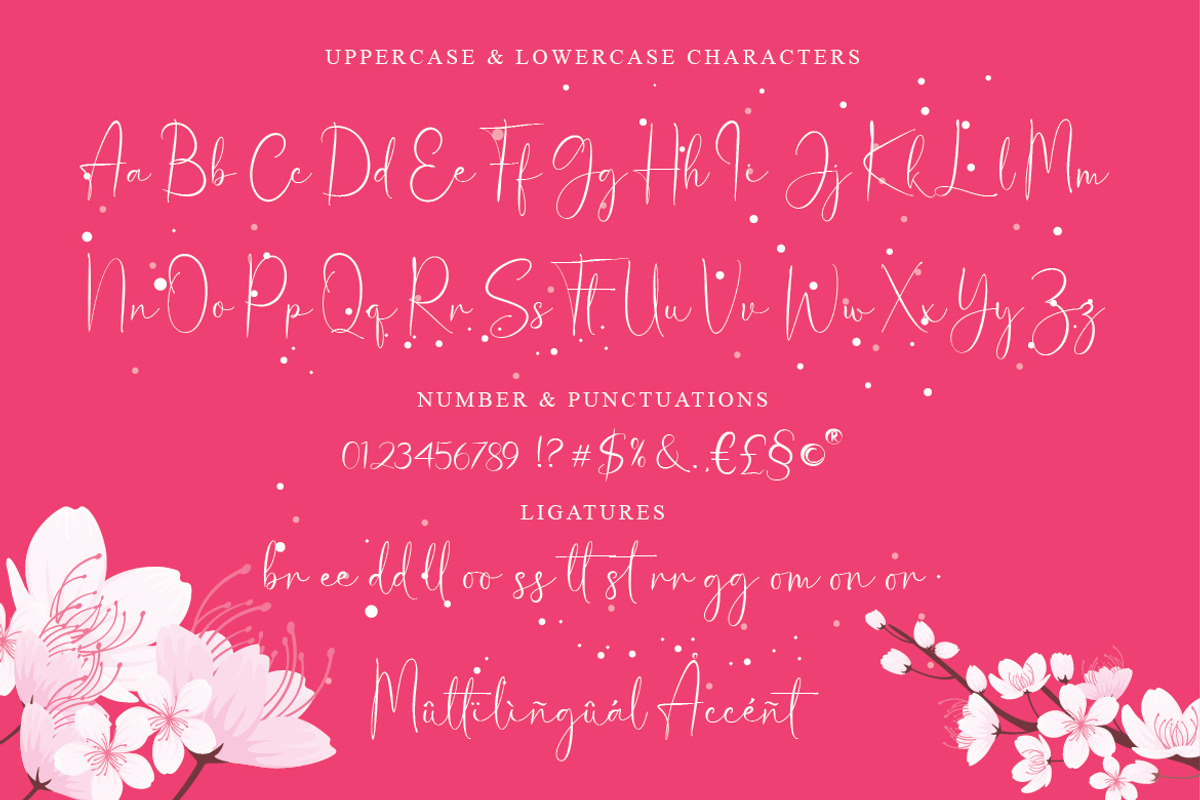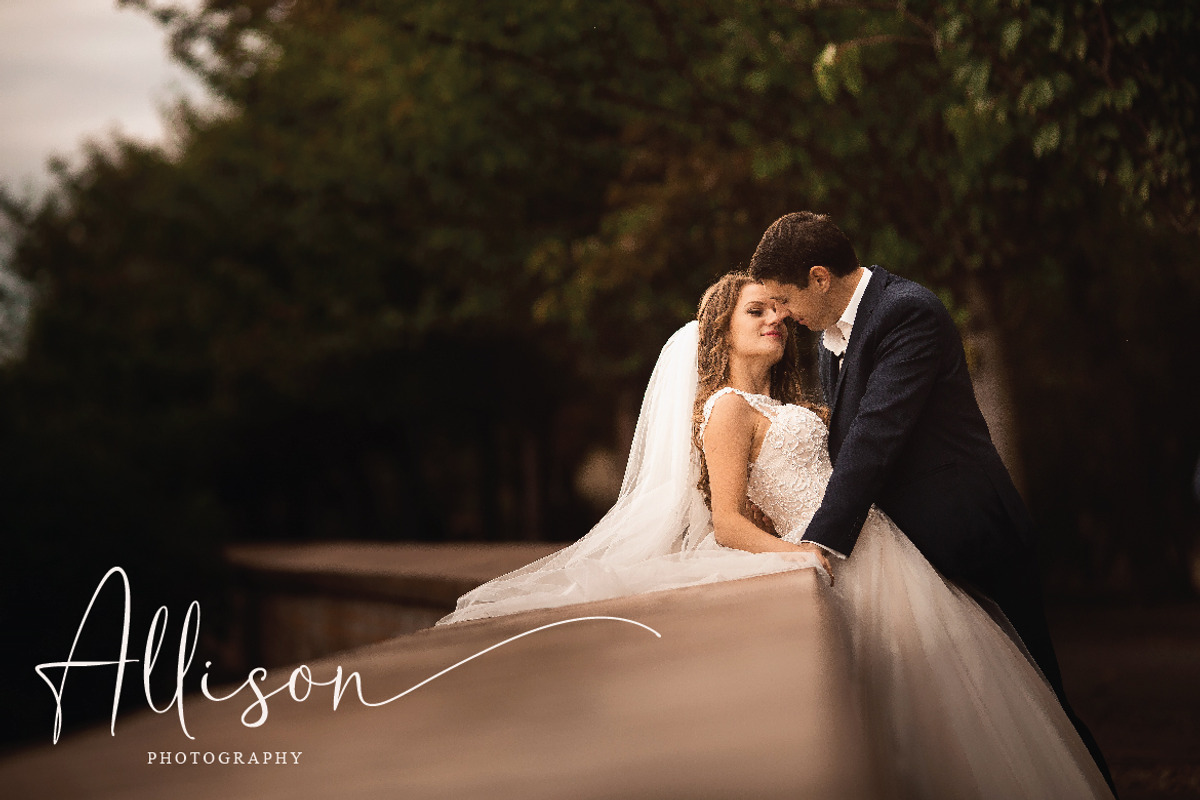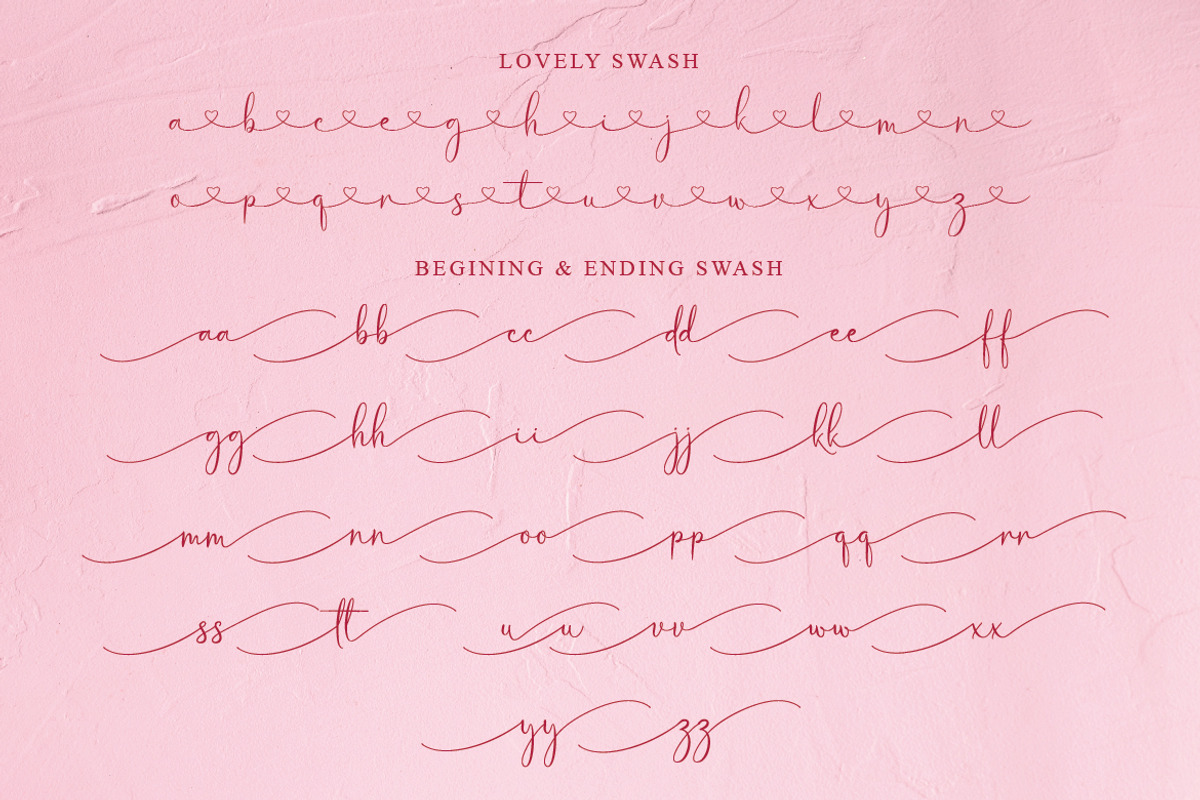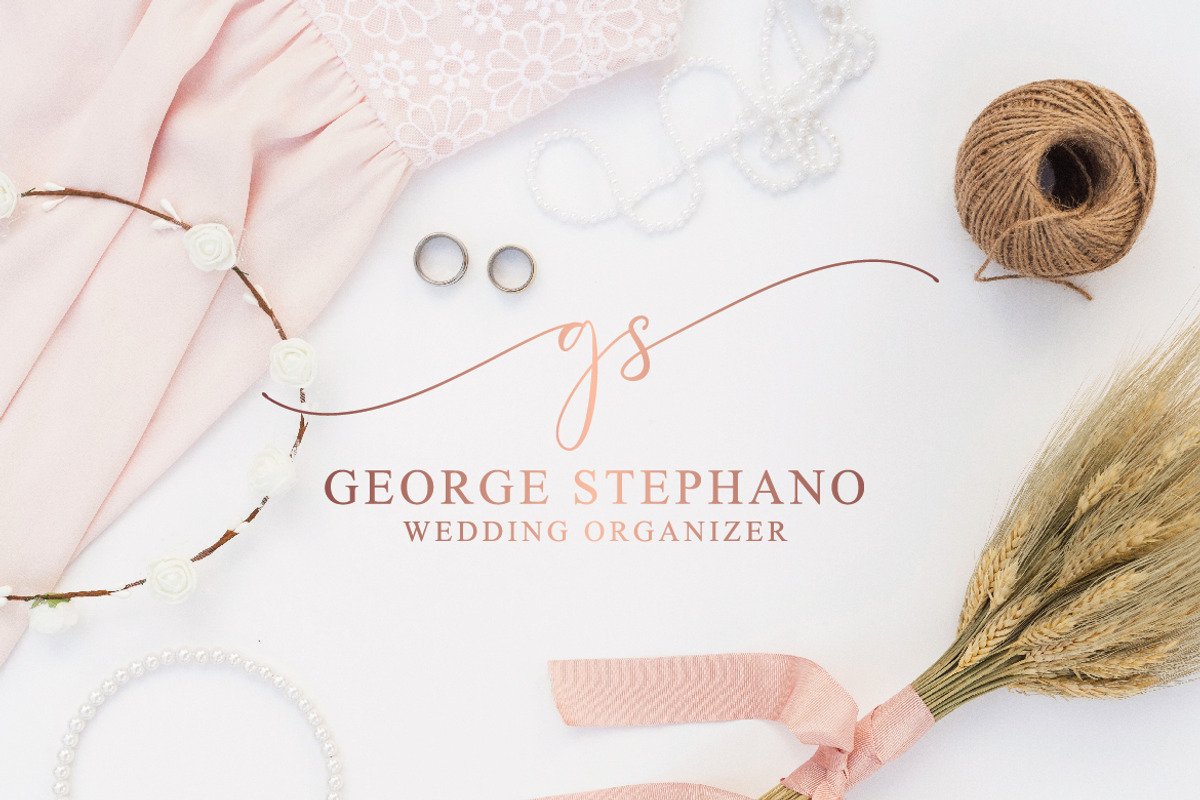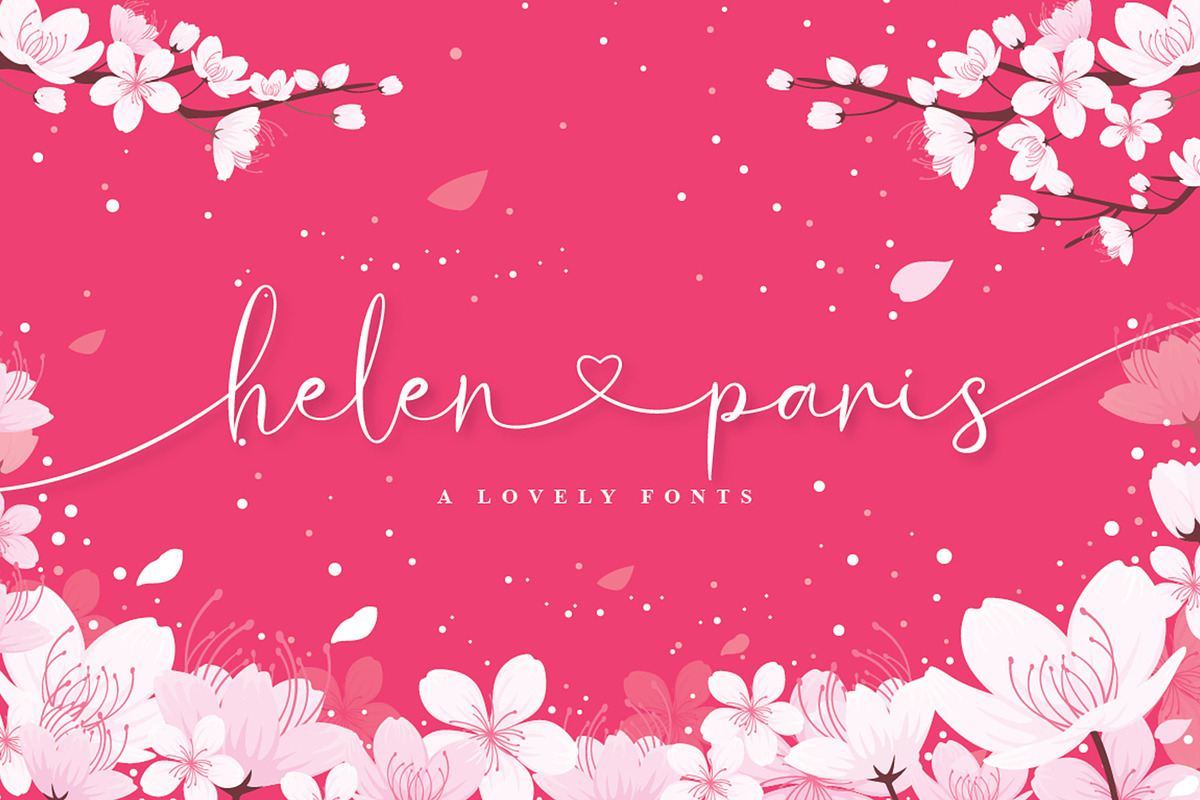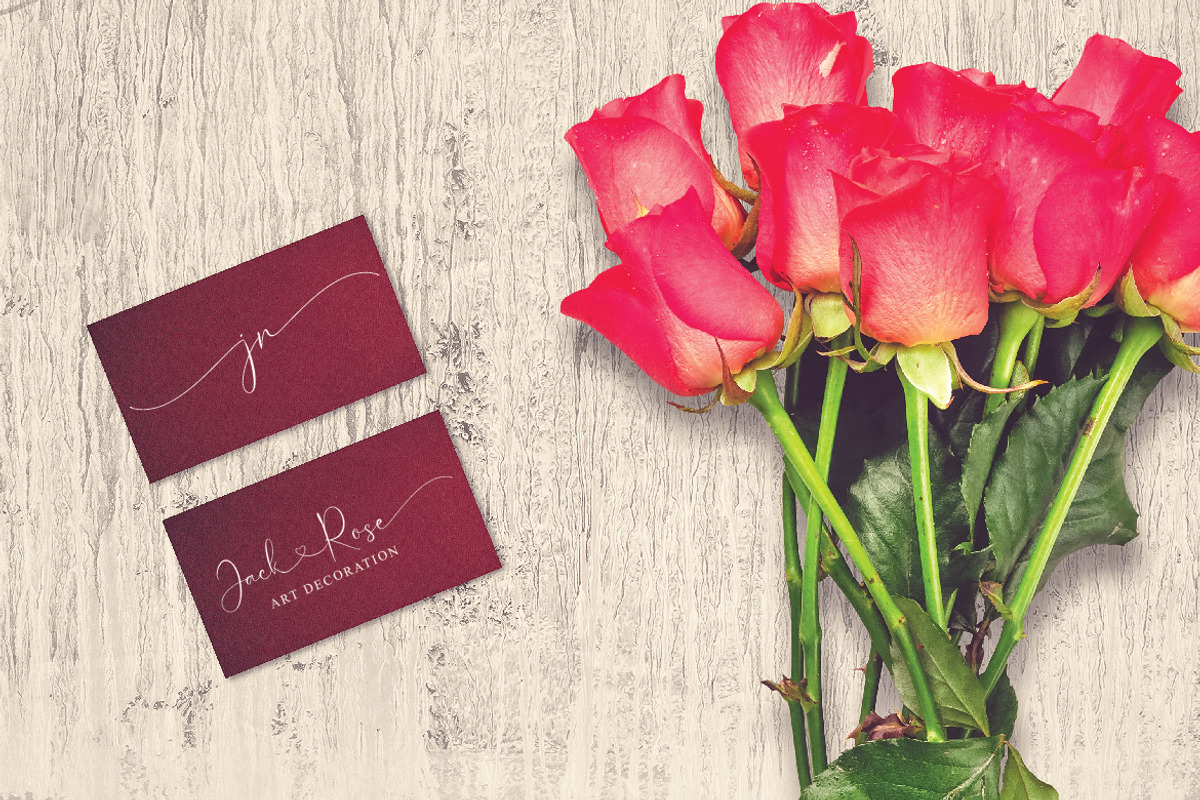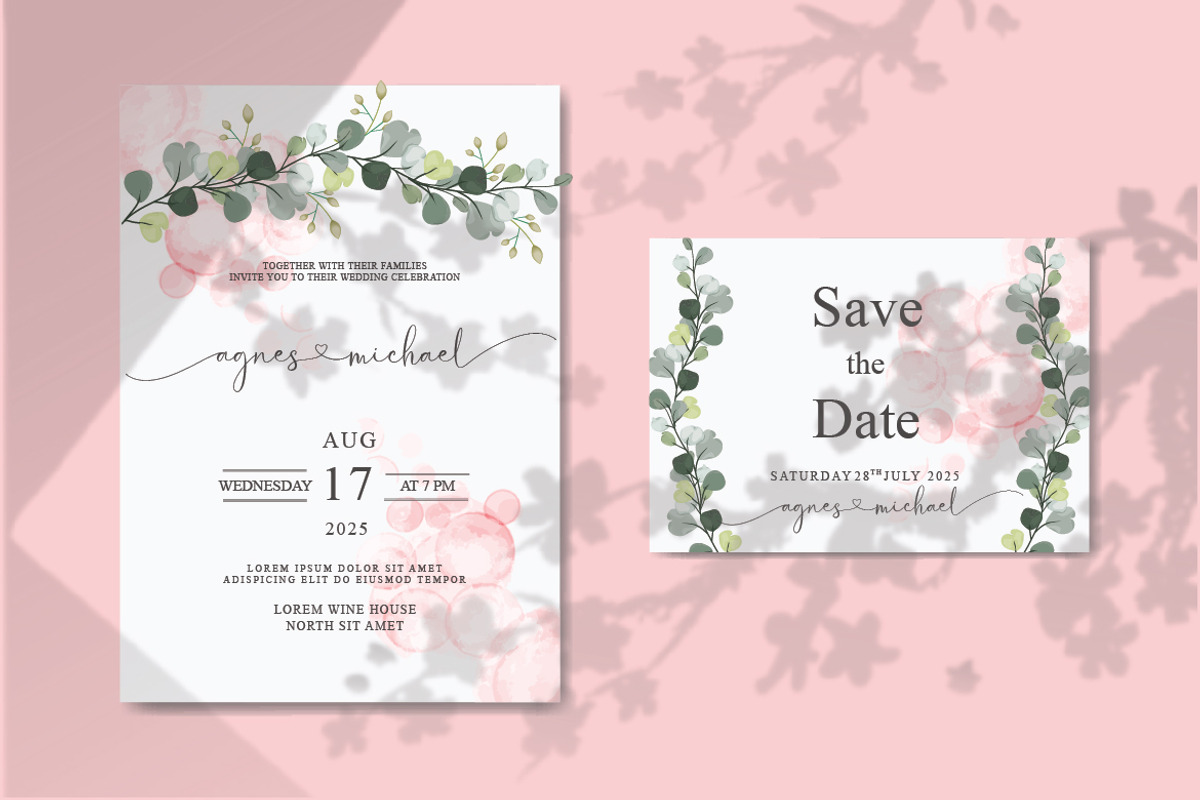
Helen Paris - Lovely Script
Helen Paris is a modern calligraphy with many alternative styles, this font looks natural, elegant and perfect for any extraordinary project. Helen Paris is suitable for various products such as invitations, product packaging, quotes, product design, crafter, labels, photography, watermarks, logos & branding and very suitable for design Valentine day, mother day, wedding, spring, christmas, etc.